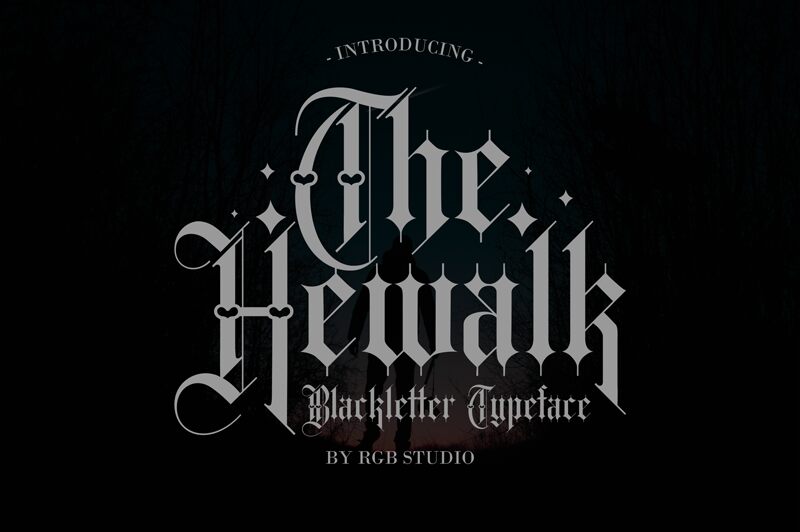
Hewalk
Hewalk is a new free font inspired by medieval and gothic fonts that adds a touch of glamour and modernism in one display. This unique font with distinctive angular and stylish characters is available for personal projects. You can use it for branding and packaging designs, posters and flyrs, labels and apparel, quotes and headlines, titles and cover designs.